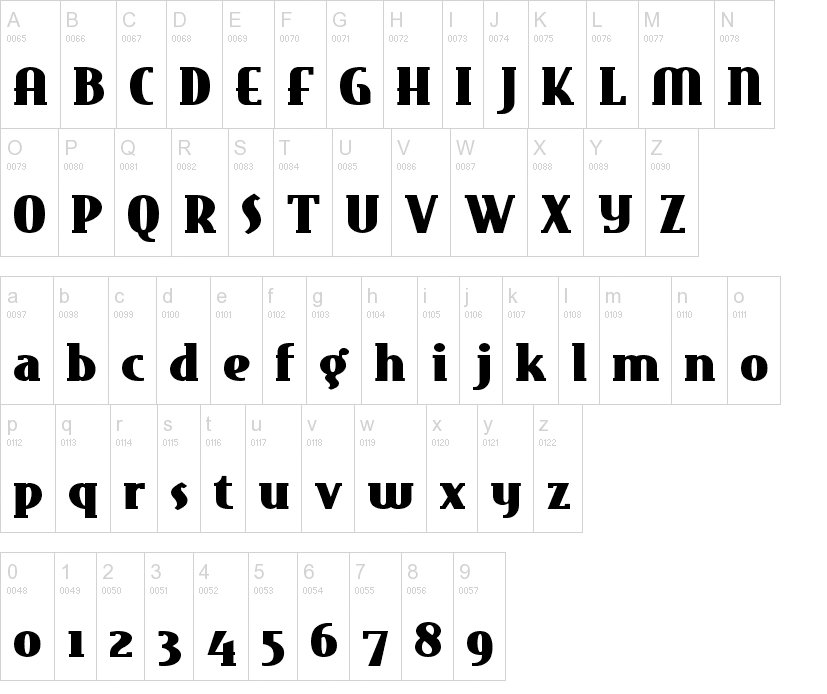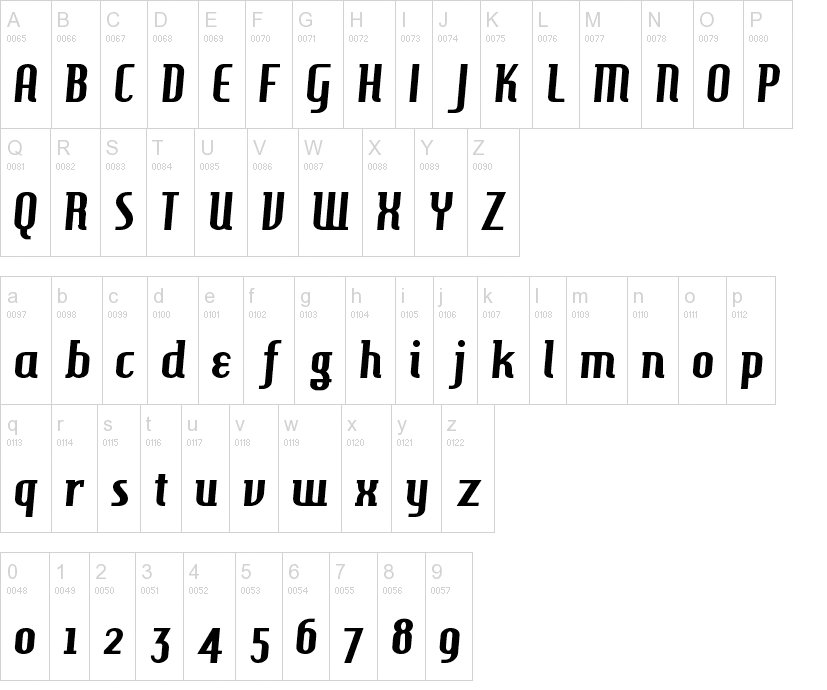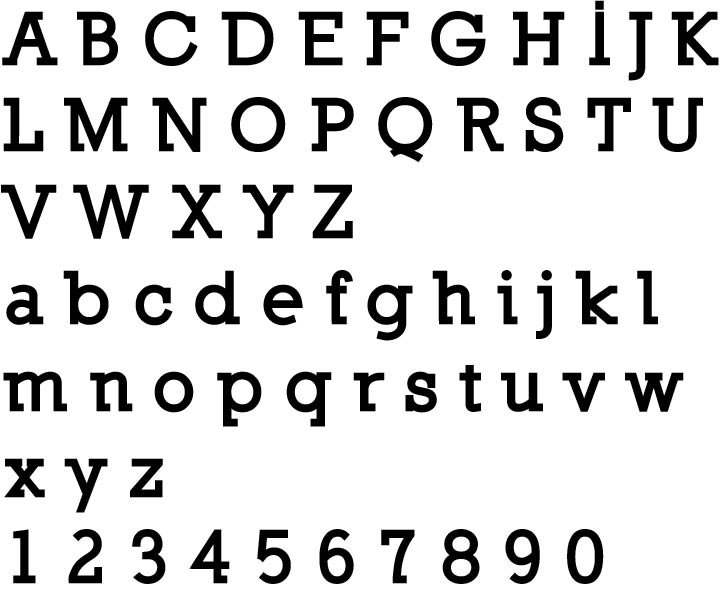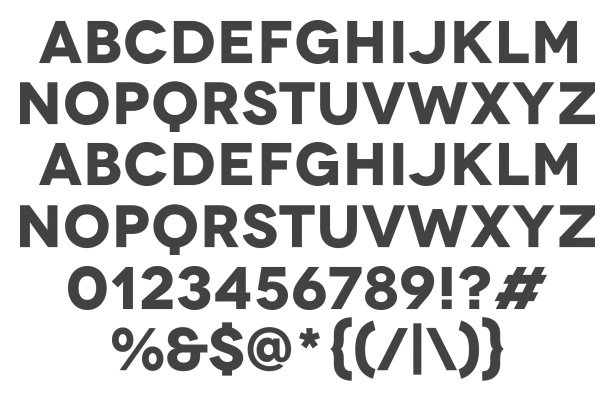
15 Free Bold Fonts You Should Be Using
I don’t have to tell you twice that selecting a typeface for your headlines and headers is important. Choosing the right typeface can really make your text stand out. A good display typeface can change the entire look and feel of a document or a website. With the implementation of Google fonts and @fontface, websites can now have rich, exciting typographic experiences as well, all with free bold fonts.
Whether it is on a printed document or a website, most readers scan large bodies of text so that they can get the general information that they need quickly and easily. The headers of each section are the what lets the reader know that a new section of content is starting. These fonts are mainly for display purposes, and should not be used as long body copy. Below is a selection of some of the best free bold fonts you should be using as your display typefaces.
Bold headlines get attention, which is their entire purpose. They are made to stand out and make the reader want to find out more information. These faces are too thick and bold to use in body copy, but pairing them with a nice body copy will make your text look elegant and beautiful. What display typefaces do you use? What free bold fonts would you recommend? Leave your answers in the comments section below.